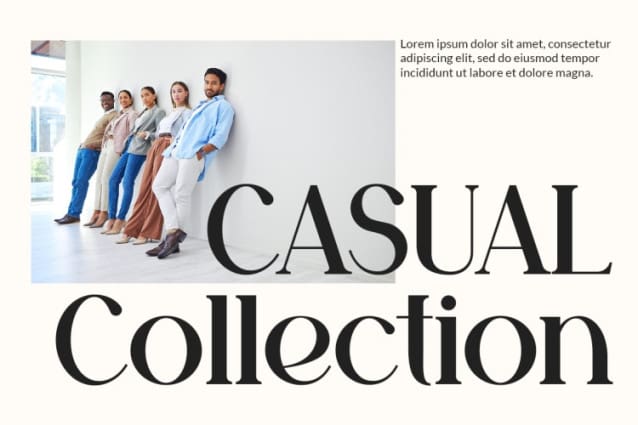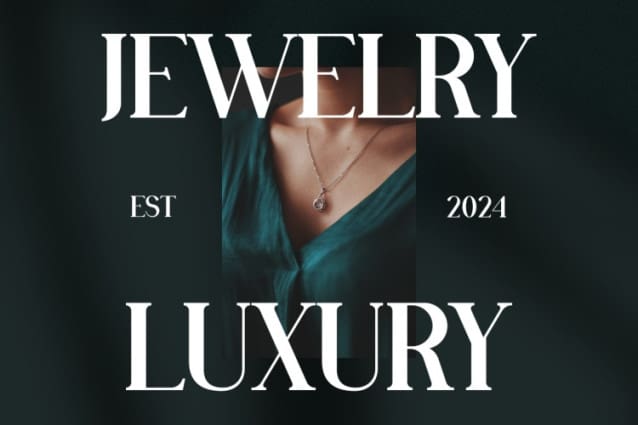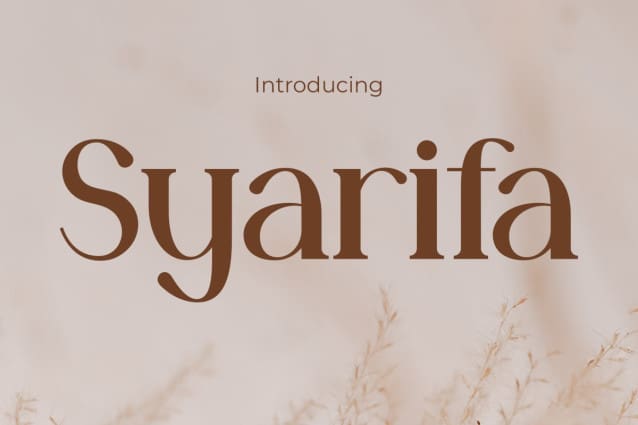
Syarifa Font
Syarifa Font embodies a captivating fusion of elegance, fashionability, and feminine allure, infused with a casual charm perfectly suited for a variety of brand identities. With its graceful lines and stylish nuances, Syarifa Font radiates sophistication and allure, making it an exquisite choice for brands seeking to project an image of refined femininity. Whether adorning fashion labels, lifestyle blogs, or trendy cafes, this font effortlessly infuses every design with an air of effortless elegance, ensuring brands make a memorable statement with their visual identity.
Crafted to strike a harmonious balance between casual chic and timeless sophistication, Syarifa Font adds a touch of glamour to any branding project, elevating it with its distinct charm. Its chic and fashionable appearance injects a sense of modern flair into brand communications, whether they’re showcased on product packaging, social media platforms, or website designs. Syarifa Font encapsulates the essence of elegant femininity, infusing each brand communication with a contemporary allure that resonates with style-conscious audiences.